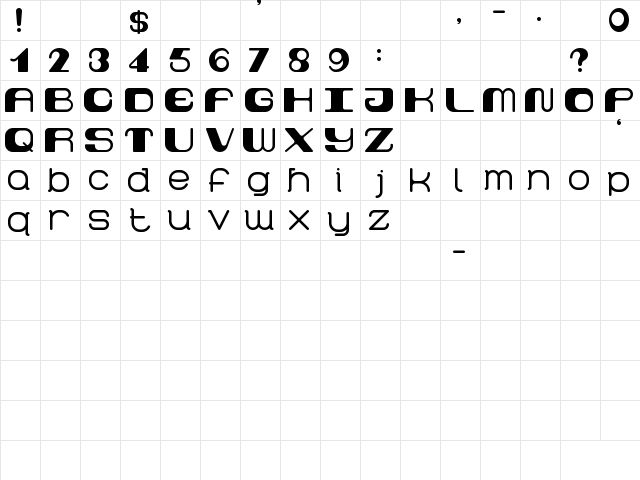
Retro60 Regular
Design Context for Retro60
Retro60 wears its vintage influences proudly, with letterforms that recall mid-century signage, classic packaging, and nostalgia-driven design.
Font Pairing: Combine Retro60 with a simple slab or neutral sans - period-accurate companions reinforce the vintage feel without competing for attention.
Pro Tip: Lean into Retro60's period character by pairing it with aged paper textures, muted colour palettes, and vintage illustration styles.